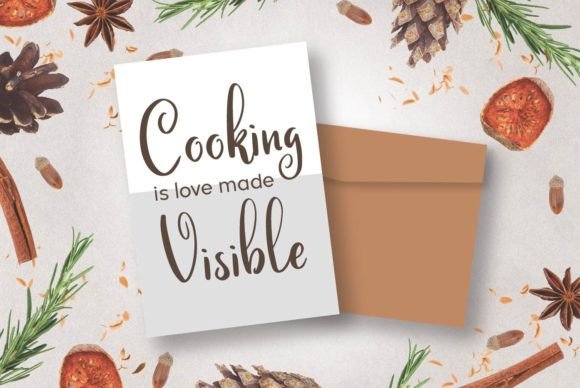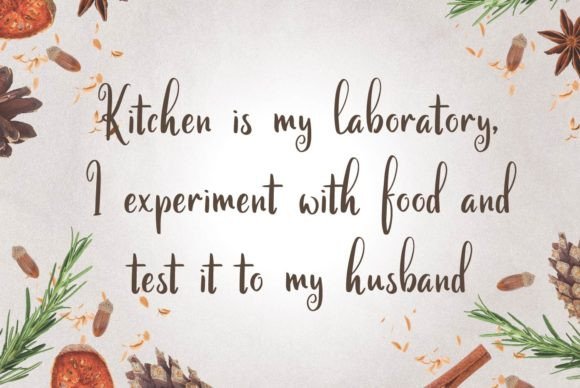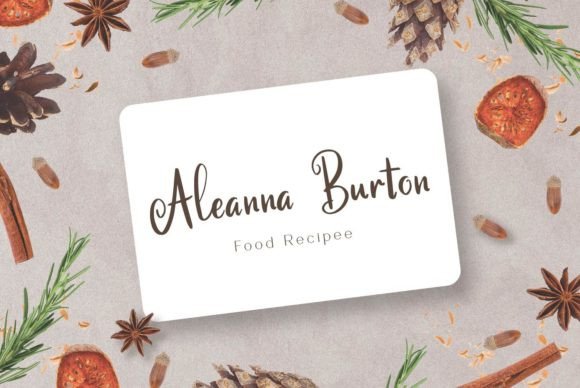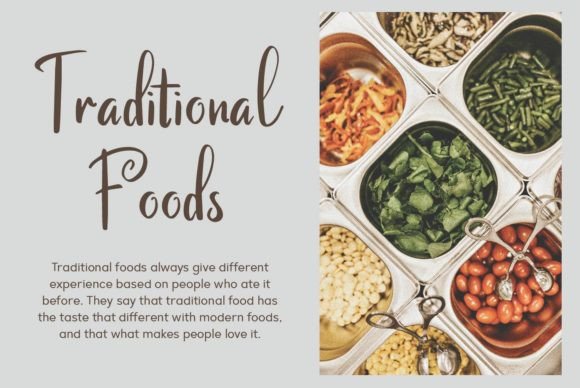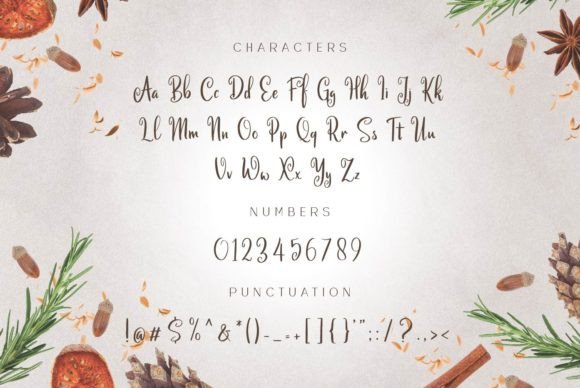
The Perfect Touch: Unleashing the Magic of Calinastiya Font
Have you ever been working on a design project and just felt like something was missing? A certain je ne sais quoi that would take your creation from good to great? For many designers, the answer lies in the perfect font – and that’s where Calinastiya Font comes in.
This delicate and well-rounded handwritten font is a game-changer for crafty projects that require authentic typography. Whether you’re creating wedding invitations, birthday cards, or personal branding materials, Calinastiya Font adds a touch of elegance and sophistication that’s hard to find elsewhere.
For designers, Calinastiya Font is a valuable asset that can elevate your designs and set them apart from the crowd. Its versatility makes it perfect for a wide range of applications, from logos to stationery, and its unique charm is sure to captivate your audience.
Calinastiya Font Key Features
- Font Family: Calinastiya Font is a unique, hand-drawn font family with 6 styles, each with its own distinct character and flair.
- Unique Characteristics: The Calinastiya Font features a unique blend of hand-drawn and digital elements, resulting in a distinctive, eye-catching aesthetic that sets it apart from other fonts.
Calinastiya Font Review
As a designer, I was excited to try out the Calinastiya font, and overall, it’s a nice addition to any design project. ✨ Here are some things that worked well for me:
- Unique design: The Calinastiya font has a distinct, hand-drawn feel that sets it apart from more generic fonts.
- Good legibility: The font is easy to read, even at smaller sizes, which is a must for any design project.
- Good range of weights: The font comes in a range of weights, from light to bold, which gives designers flexibility when creating different effects.
- Limited language support: The font may not be suitable for projects that require support for non-Latin scripts.
- Not ideal for small text: While the font is legible, it’s not ideal for very small text sizes, where the letterforms can become too intricate.
- Some glyphs may be lacking: Depending on the specific project, some glyphs may be missing or not included in the font.
Overall, I think the Calinastiya font is a solid choice for designers looking for a unique, hand-drawn feel. While it has some limitations, it’s a great addition to any design project, and with a little creativity, you can work around its limitations to achieve great results.
Tips for Getting the Most Out of Calinastiya Font
1. Experiment with different font sizes and styles to create visual interest.
2. Use Calinastiya Font in combination with other fonts to create a unique look.
3. Adjust the font color to match your brand or design scheme.
1. Use Calinastiya Font for titles, headings, and main body text.
2. Create a custom logo or branding using Calinastiya Font.
3. Use Calinastiya
Alternatives to Calinastiya Font
Playfair Display is a luxurious, elegant serif font that is perfect for creating a sophisticated and high-end look. It features intricate details and ornate flourishes that make it ideal for use in titles, headings, and other prominent text elements. Playfair Display is similar to Calinastiya Font in its ornate and luxurious feel, but it has a more classic and timeless look.
Great Vibes is a beautiful, elegant script font that is perfect for creating a romantic and whimsical look. It features flowing connections and organic shapes that make it ideal for use in titles, headings, and other decorative text elements. Great Vibes is similar to Calinastiya Font in its elegant and luxurious feel, but it has a more relaxed and casual vibe.